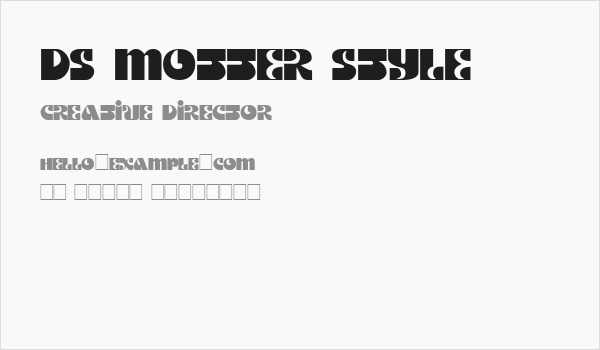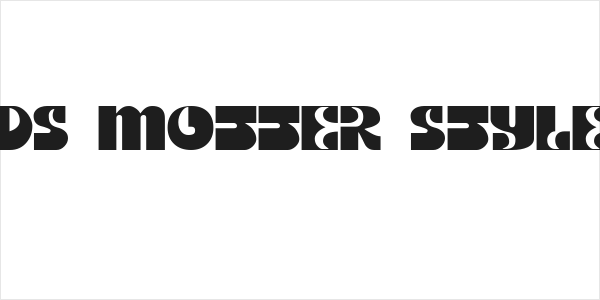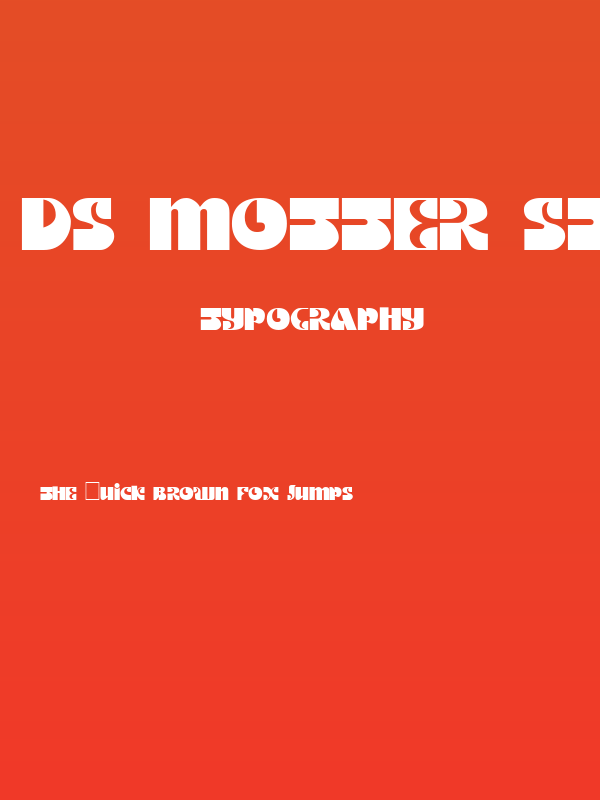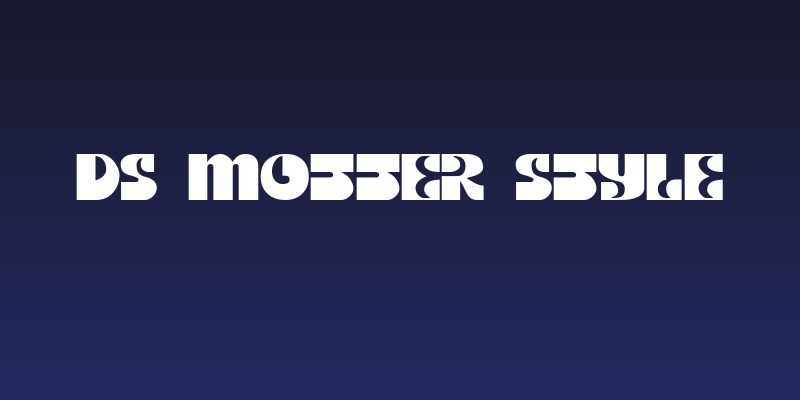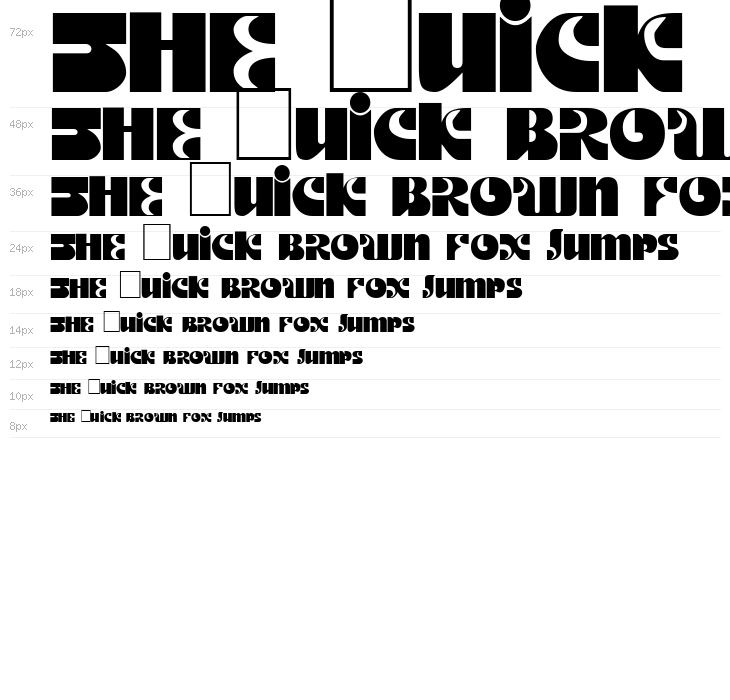
DS Motter Style Font
DS Motter Style Description
This font features a bold and geometric design with a strong emphasis on circular and semi-circular shapes. The characters are constructed with thick strokes and high contrast, creating a striking visual impact. The uppercase letters are particularly distinctive, with unique cutouts and curves that give the font a modern and artistic flair. The overall style is reminiscent of retro and futuristic design elements, making it suitable for projects that require a bold and eye-catching typeface. The absence of lowercase letters and numbers suggests a focus on decorative and display purposes.
| Overall Style | Modern, Retro |
| Proposed Projects | Ideal for branding, poster design, album covers, and any project needing a bold, artistic touch. |